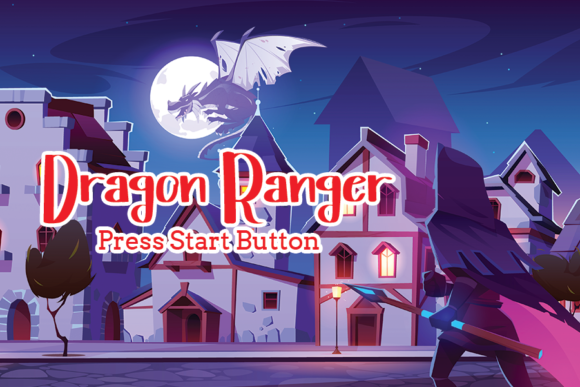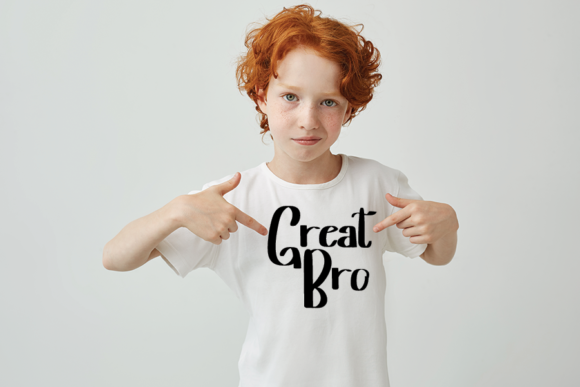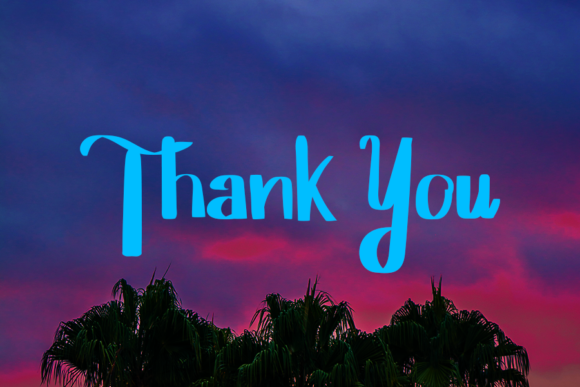
The Great Font: Elevate Your Designs with a Fun and Friendly Display Font
I’ll never forget the time I was working on a project for a client who needed a font that was both fun and professional. I had spent hours scouring the internet for the perfect font, but nothing seemed quite right. That was when I stumbled upon the Great Font. Its playful yet sophisticated design instantly caught my eye, and I knew I had found the perfect fit. In this article, I’ll share my experience with the Great Font, its features, and how to make the most of it in your designs.
So, what makes the Great Font so special? Here are some things I love about it:
- ✨ Unique and eye-catching design: The Great Font has a simple yet strong visual effect that instantly makes your creation more appealing.
- ✅ Highly versatile: This font can be used for a wide range of projects, from branding and advertising to packaging and digital media.
- 💡 Easy to read: Despite its playful design, the Great Font is surprisingly easy to read, even at smaller sizes.
Of course, no font is perfect, and the Great Font has a few small quirks:
- 🤔 Limited suitability for body text: While the Great Font is amazing for headlines and titles, it’s not the best choice for longer blocks of text.
- ⚠️ Some glyphs may not work well in all contexts: As with any font, it’s essential to test the Great Font in your specific design context to ensure it works as intended.
- Experiment with the font’s OpenType features, such as Stylistic Alternates and Glyphs, to add more visual interest to your design.
The Story Behind the Great Font
The Great Font was designed by a team of typographers who wanted to create a font that was both fun and professional. Inspired by classic fonts from the 19th century, the Great Font combines traditional elements with modern twists and features. The result is a font that’s both unique and versatile, perfect for a wide range of design projects.
| Font Name | Great Font |
| Author | merge354 |
| What is the Great Font best suited for? | The Great Font is perfect for headlines, titles, and short blocks of text. It’s not recommended for longer blocks of text or body copy. |
| Is the Great Font available in different weights and styles? | Yes, the Great Font comes in several weights and styles, including regular, bold, and italic. |